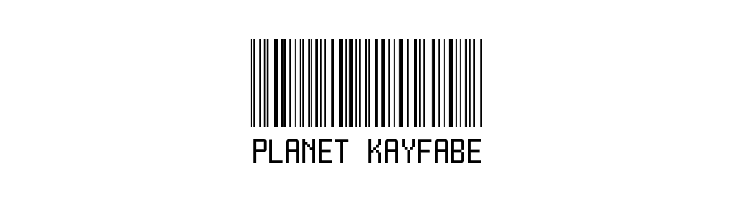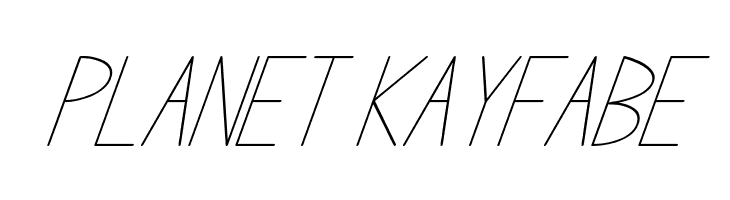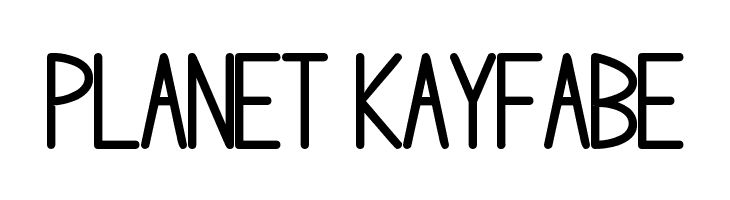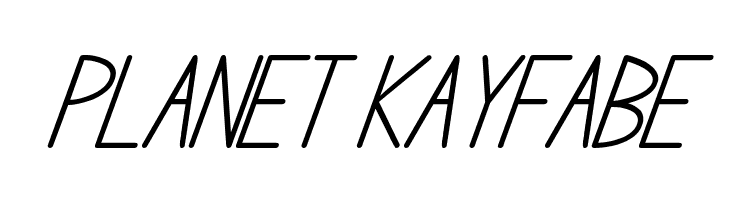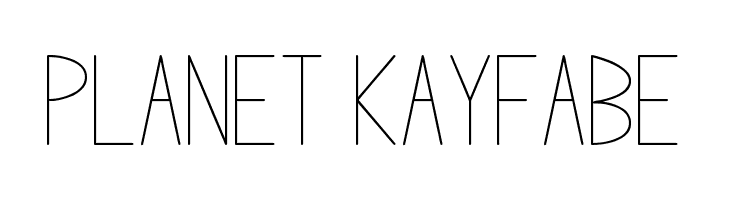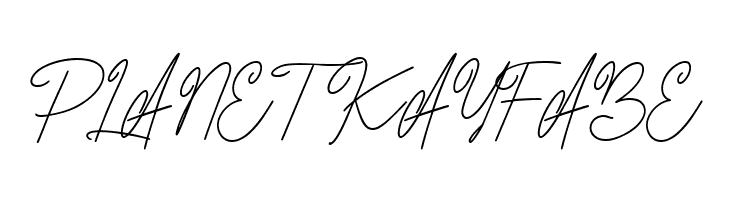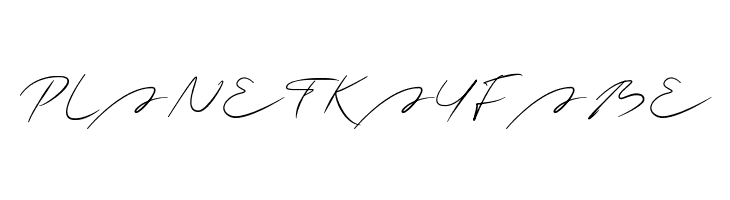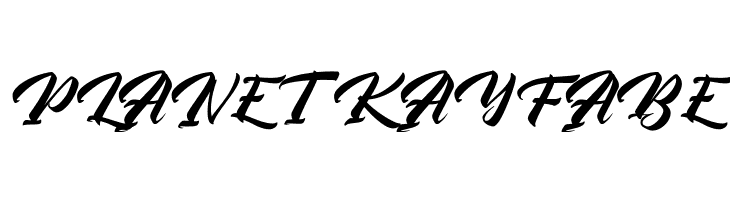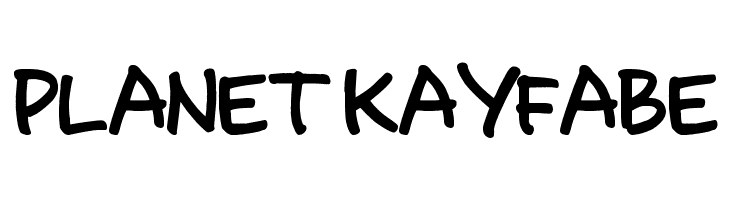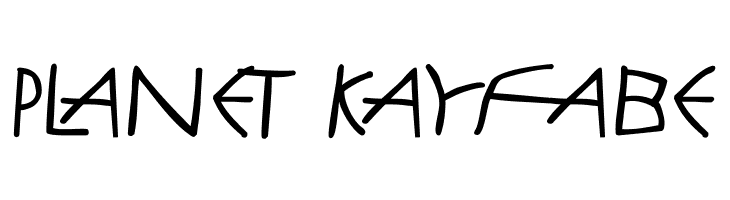
• Anneke Medium
A playful, casual handwritten font with smooth, flowing lines and uniform stroke thickness.
• AnnekeBold Medium
A playful, handwritten font with rounded, irregular letterforms.
• AnnekeLight Medium
A playful, handwritten font with thin, consistent strokes and a casual style.
• Annoying Kettle
A playful, handwritten font with bold, rounded strokes and a whimsical style.
• anome ibul
A thin, modern font with elongated, narrow letterforms and consistent stroke width.
• anome ibul bold
A modern, geometric font with consistent stroke width and rounded edges.
• anome ibul bold cursive
A bold, cursive font with a dynamic and elegant style.
• anome ibul bolder
A bold, rounded, and modern font with a playful and approachable style.
• anome ibul cursive
A sleek, cursive font with elongated, flowing lines and a modern elegance.
• Another
A playful, casual handwritten font with bold, rounded characters.
• Another barcode font
A barcode-style font with vertical lines representing each character.
• Another Faces St
Expressive, cartoon-style font with faces as characters.
• ANOTHER HAND OF CRE
A casual, handwritten font with a playful and informal style.
• ANOTHER HAND OF CRE
A playful, handwritten-style font with a casual and dynamic appearance.
• another ornaments tfb
Ornamental border and flourish collection with vintage, decorative style.
• Another Typewriter
A nostalgic, typewriter-inspired font with a vintage, mechanical feel.
• Another X Display tfb
A dot matrix font with a digital, retro aesthetic.
• Anson
• Antagonist FREE
A bold, expressive script font with fluid, connected strokes and high contrast.
• Antelope H
A bold, playful font with a hand-drawn, artistic style.
• Anthrax Free Font
A bold, energetic brush-style font with a dynamic and creative flair.